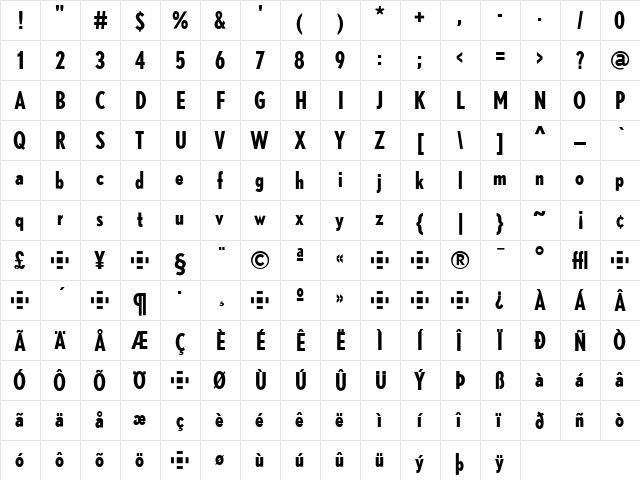
Nobel Bold
Design Context for Nobel Typeface
Nobel takes a measured approach to typography — its balanced proportions and neutral character make it a reliable workhorse for both digital and print work. The heavy weight commands attention and anchors typographic hierarchies.